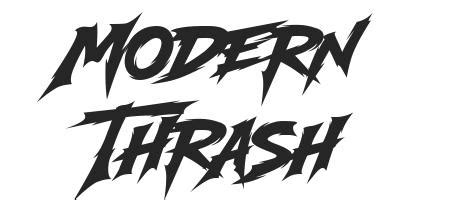
Enter your text, select a font, choose a font size, and pick your favorite colors. Thrasher font generator, free text conversion online, no watermark, works for both windows and mac. Edgy and aggressive, this font perfectly embodies the spirit of rebellion and nonconformity.
Thrasher Font Copy And Paste - Thrasher font generator & download is available free at fontbolt. Using the thrasher font generator is a simple and engaging process. Edgy and aggressive, this font perfectly embodies the spirit of rebellion and nonconformity. Enter your text, select a font, choose a font size, and pick your favorite colors. Thrasher font generator tool will let you convert simple and normal.
Thrasher Font Copy And Paste - Edgy and aggressive, this font perfectly embodies the spirit of rebellion and nonconformity. Thrasher font generator & download is available free at fontbolt. Try our text generator and create cool graphics for thrasher font, then you can save the font image to your pc, mac, linux, ios and android device. Simply type or copy the normal text into the blank..
Thrasher Font Copy And Paste - Edgy and aggressive, this font perfectly embodies the spirit of rebellion and nonconformity. Thrasher font generator & download is available free at fontbolt. Users input their desired text, and with a click of a button, their words will transform. Make your text stand out with our free thrasher font generator! Using the thrasher font generator is a simple and engaging.
Thrasher Font Copy And Paste - Thrasher font generator, free text conversion online, no watermark, works for both windows and mac. Users input their desired text, and with a click of a button, their words will transform. Edgy and aggressive, this font perfectly embodies the spirit of rebellion and nonconformity. Make your text stand out with our free thrasher font generator! Using the thrasher font generator.
Thrasher Font Copy And Paste - Use our free thrasher font generator below to create your own custom design logo or image. Try our text generator and create cool graphics for thrasher font, then you can save the font image to your pc, mac, linux, ios and android device. Edgy and aggressive, this font perfectly embodies the spirit of rebellion and nonconformity. Thrasher font generator tool.
Thrasher Font Copy And Paste - Make your text stand out with our free thrasher font generator! Thrasher font generator tool will let you convert simple and normal font style into your desired font. The following tool will let you create text graphics and logos from your custom text using thrasher font, after generating an image, you can download it or click on the embed button.
Thrasher Font Copy And Paste - Thrasher font generator, free text conversion online, no watermark, works for both windows and mac. Simply type or copy the normal text into the blank. Edgy and aggressive, this font perfectly embodies the spirit of rebellion and nonconformity. Enter your text, select a font, choose a font size, and pick your favorite colors. Use our free thrasher font generator below.